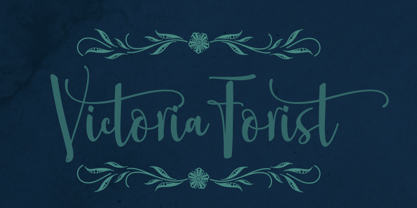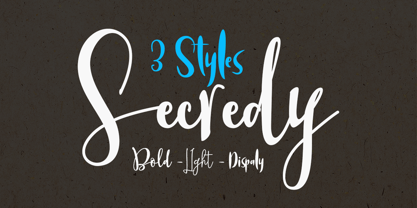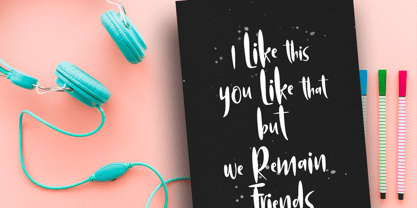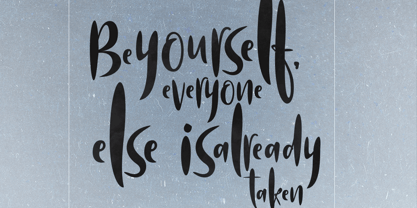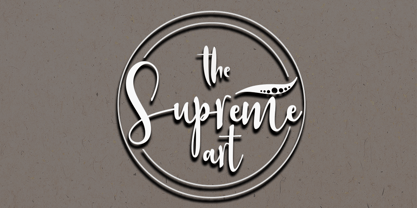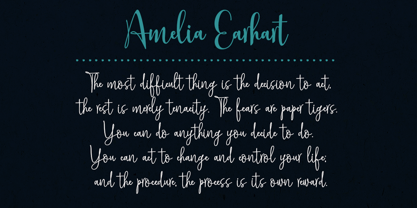
Secredy
by Groen Studio
The Secredy Font Family was designed by Roiyani Teungku and published by Groen Studio. Secredy contains 3 styles and family package options. More about this family
Secredy are three sets of fonts, it is that the fonts brush that has a different style. This is the perfect choice for personal branding project. Can be used for various purposes.such as headings, logos, wedding invitations, t-shirts, letterhead, lable, news, posters, badges etc. To enable the OpenType Stylistic alternates, you need a program that supports OpenType features such as Adobe Illustrator CS, Adobe Indesign and CorelDraw X6-X7.